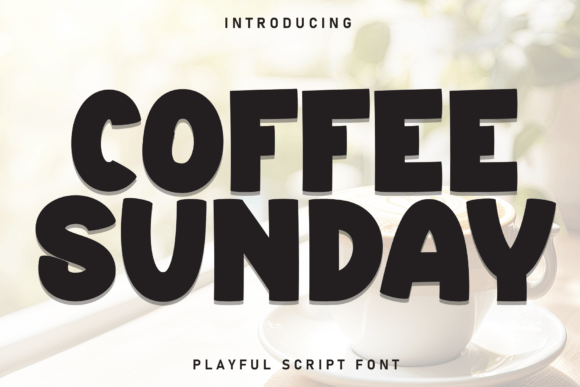
Coffee Sunday Font: The Perfect Blend of Freshness and Friendliness
In the world of typography, fonts play a crucial role in conveying the tone and personality of a brand or design. When it comes to creating a fresh and friendly vibe, the Coffee Sunday font is an excellent choice. This casual and neat display font is designed to radiate a sense of approachability and charm, making it perfect for a variety of design projects.
What is Coffee Sunday Font?
Coffee Sunday is a display font that boasts clean lines and a relaxed structure. Its unique design makes it an ideal choice for packaging, posters, social media graphics, and any other project that requires a friendly and approachable tone. The font’s polished appearance ensures that it remains professional and legible, even at larger sizes.
Key Features of Coffee Sunday Font
- Clean Lines: The font features clean and crisp lines that give it a fresh and modern look.
- Relaxed Structure: The relaxed structure of the font adds to its friendly and approachable vibe.
- Polished Appearance: Despite its casual nature, the font maintains a polished appearance that ensures it remains professional.
- Legibility: The font is designed to be highly legible, even at larger sizes.
Use Cases for Coffee Sunday Font
The Coffee Sunday font is versatile and can be used in a variety of design projects. Here are some of the most popular use cases:
- Packaging: The font’s fresh and friendly vibe makes it perfect for packaging designs that require a modern and approachable look.
- Posters: The font’s clean lines and relaxed structure make it an excellent choice for posters that require a bold and eye-catching headline.
- Social Media Graphics: The font’s polished appearance and legibility make it perfect for social media graphics, such as Facebook posts, Instagram stories, and Twitter headers.
Benefits of Using Coffee Sunday Font
Using the Coffee Sunday font in your design projects offers several benefits, including:
- Unique Look: The font’s unique design ensures that your project stands out from the crowd.
- Improved Legibility: The font’s high legibility ensures that your message is conveyed clearly and effectively.
- Professional Appearance: Despite its casual nature, the font maintains a professional appearance that ensures your project looks polished and refined.
- Time-Saving: The font’s versatility and legibility save you time and effort in designing and redesigning your project.
Coffee Sunday Font Pairing Suggestions
Pairing the Coffee Sunday font with other fonts can create a unique and visually appealing design. Here are some font pairing suggestions:
- Open Sans: Pairing Coffee Sunday with Open Sans creates a modern and clean look.
- Lato: Pairing Coffee Sunday with Lato creates a bold and eye-catching design.
- Merriweather: Pairing Coffee Sunday with Merriweather creates a classic and elegant look.
In conclusion, the Coffee Sunday font is a versatile and legible font that is perfect for design projects that require a fresh and friendly vibe. Its clean lines, relaxed structure, and polished appearance make it an excellent choice for packaging, posters, social media graphics, and any other project that requires a modern and approachable look.